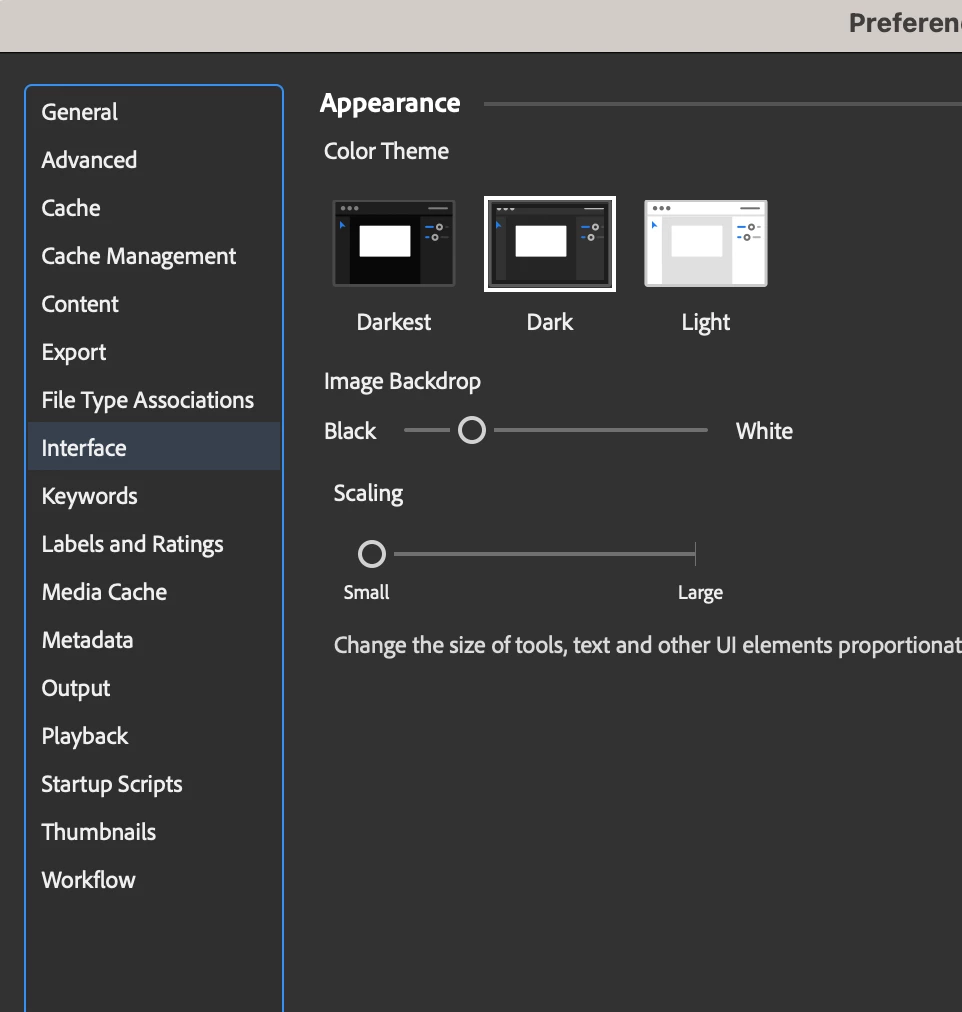
Typeface in Bridge 2023 is ugly and worse to read, please give us the option to use MacOS System Fon
I don't know why it was changed to this Adobe font, but it makes the experience worse. It looks like a pixel font from 2002. It's smaller and harder to read, but if I increase the interface scaling, it's too big.